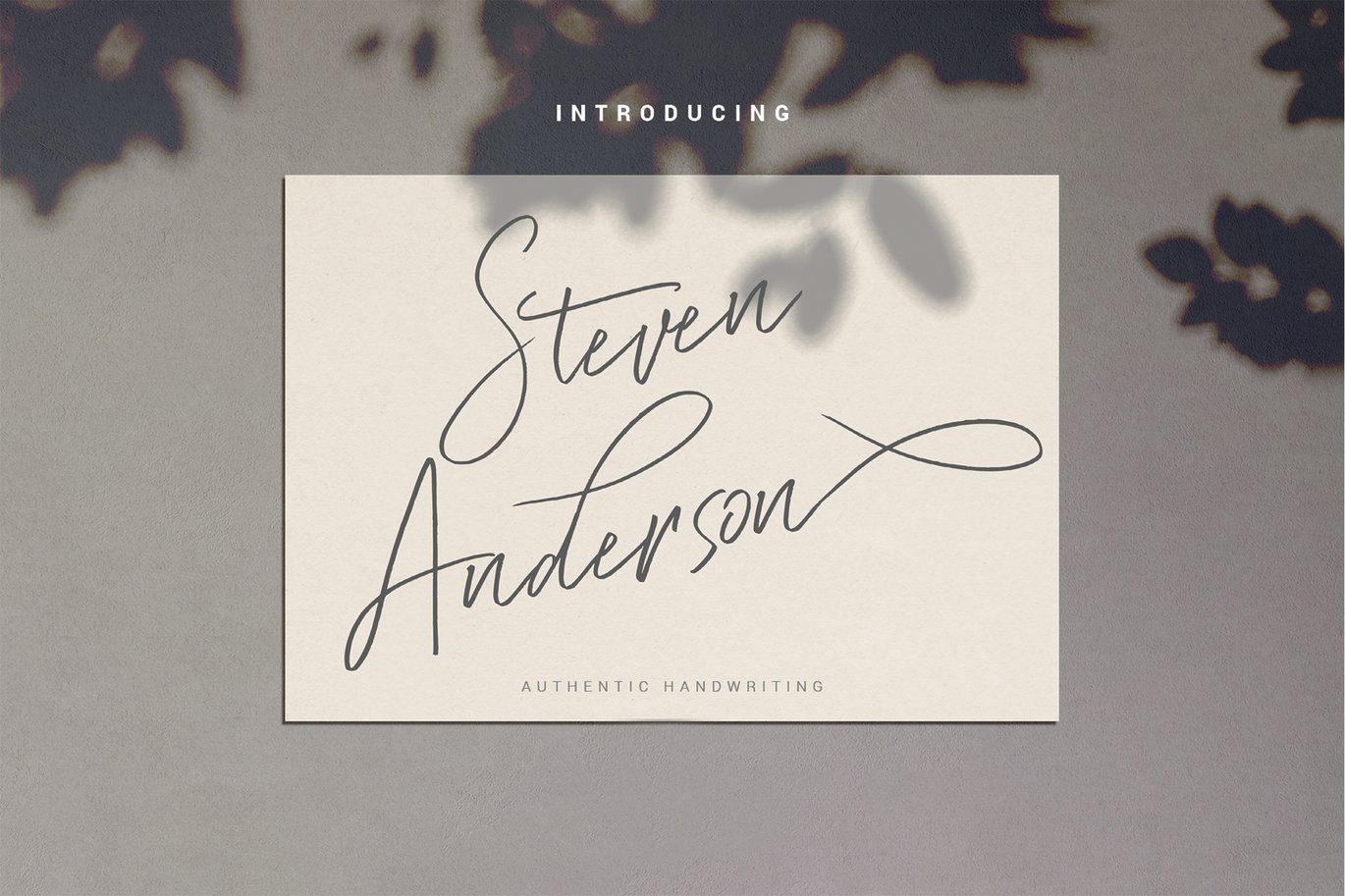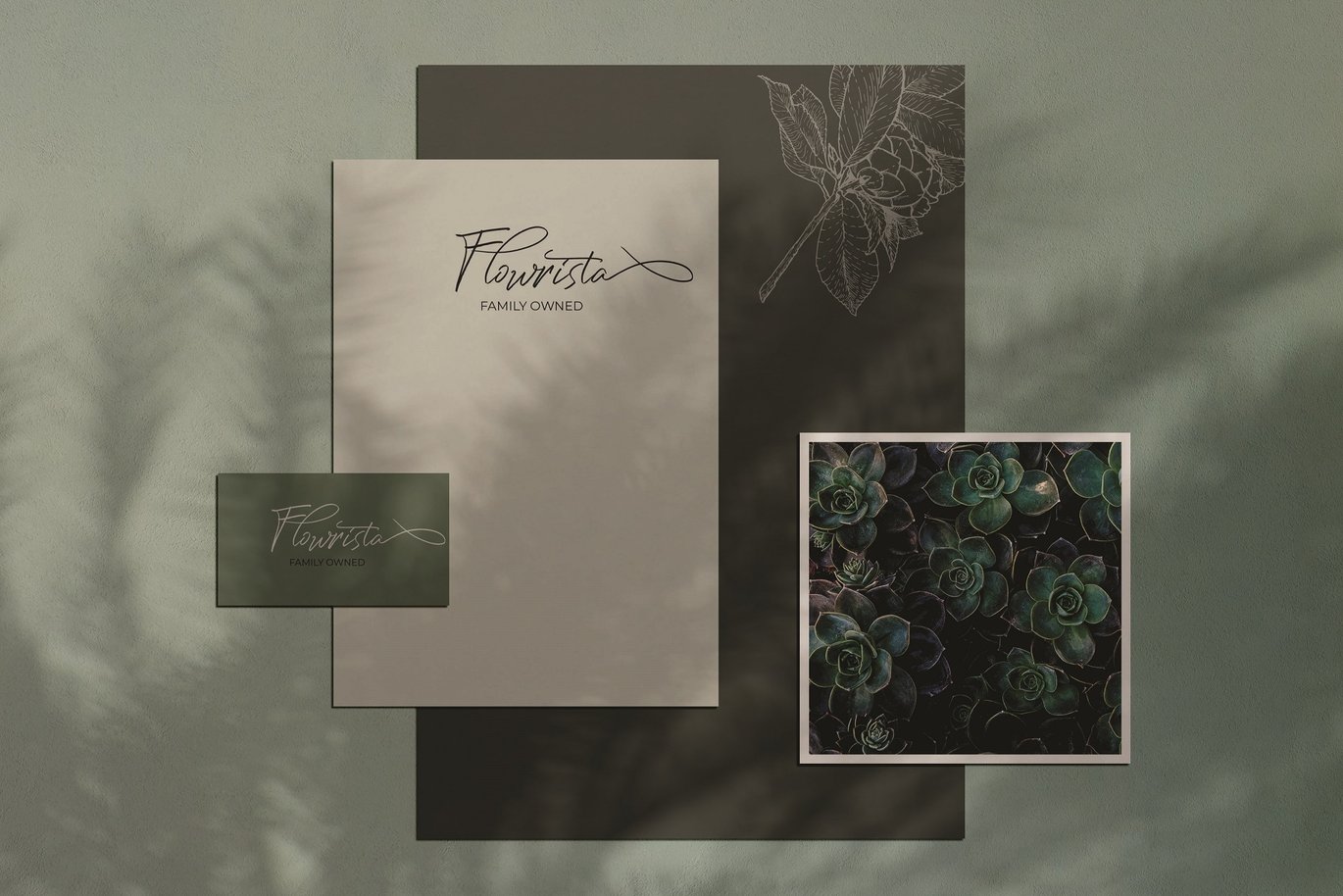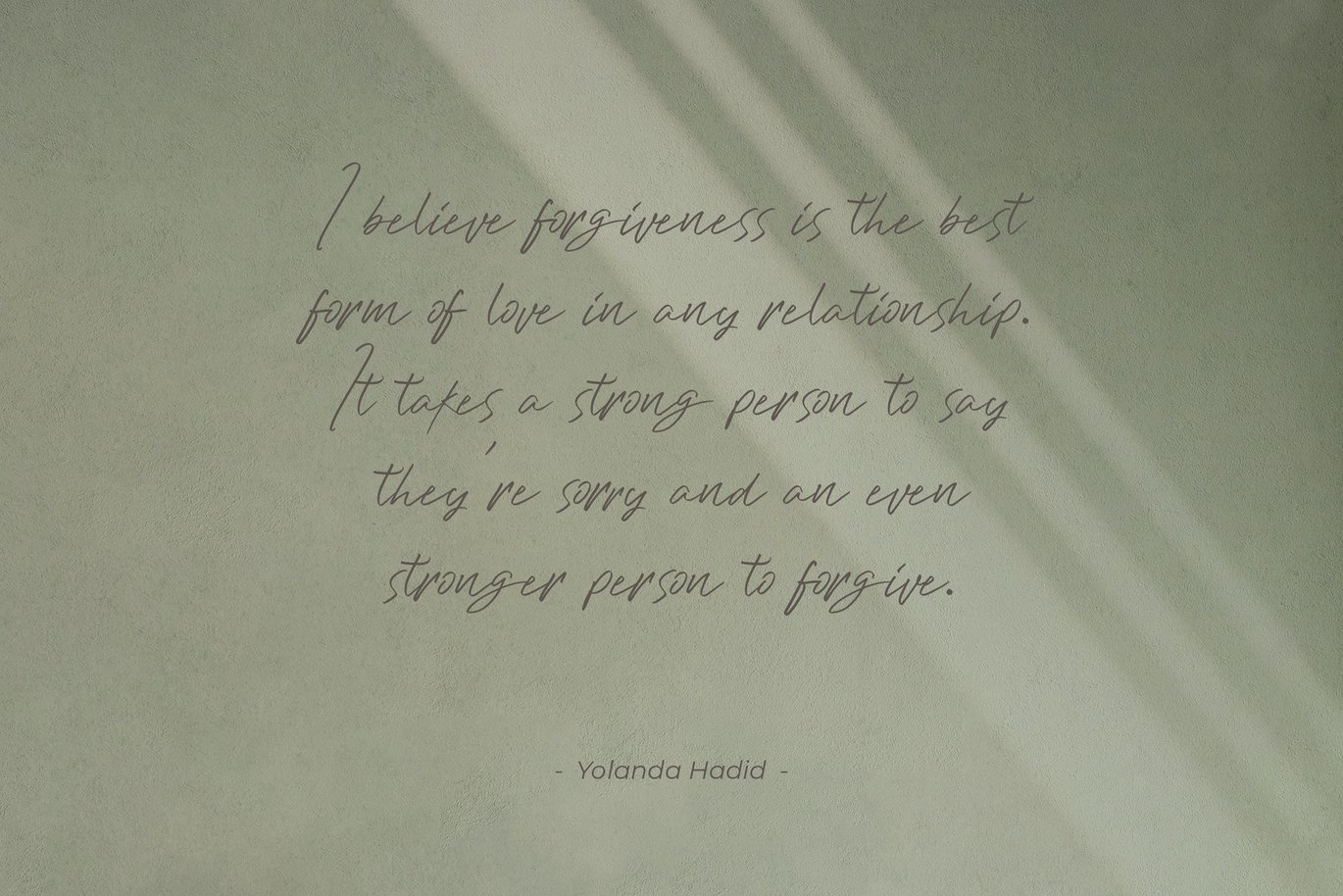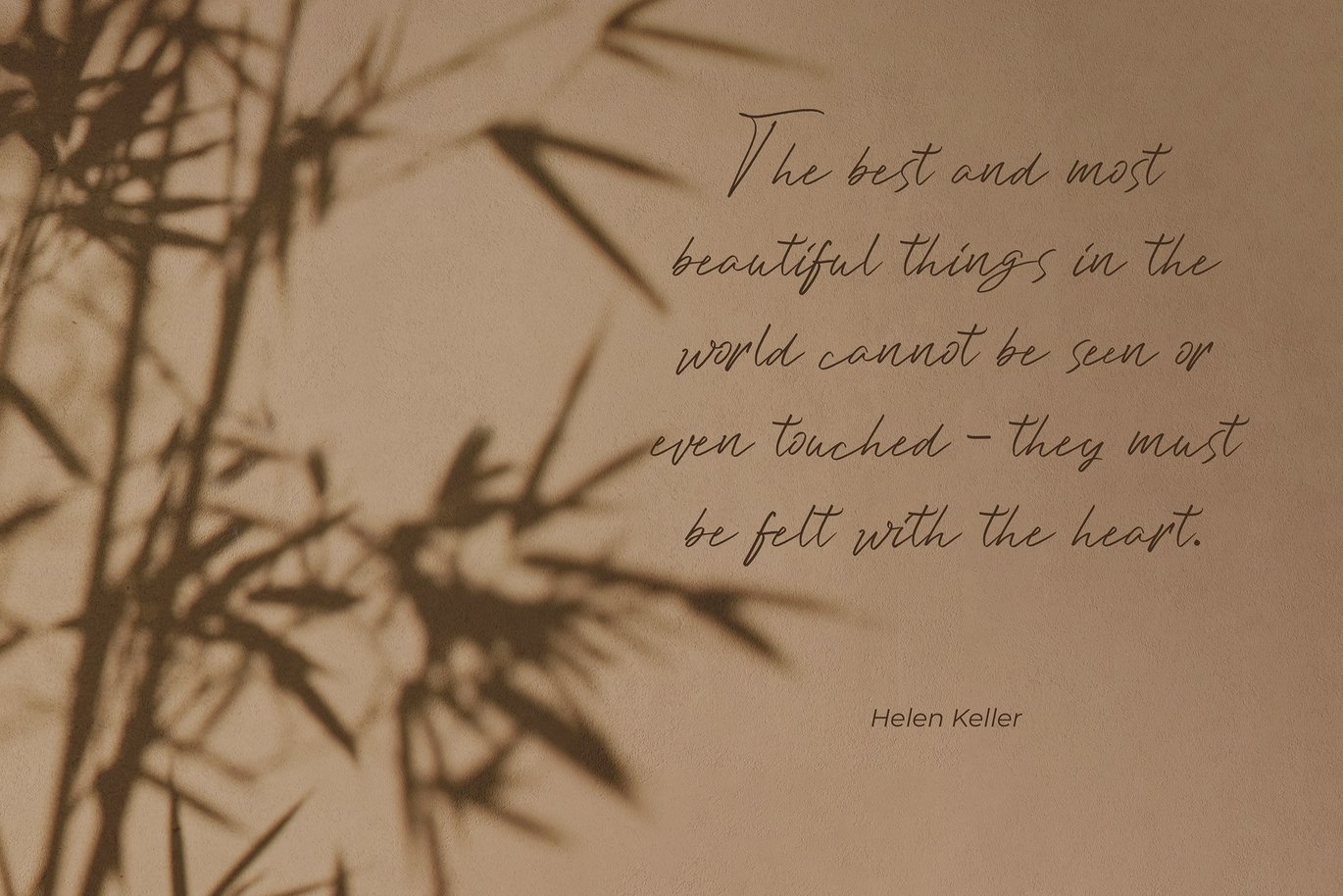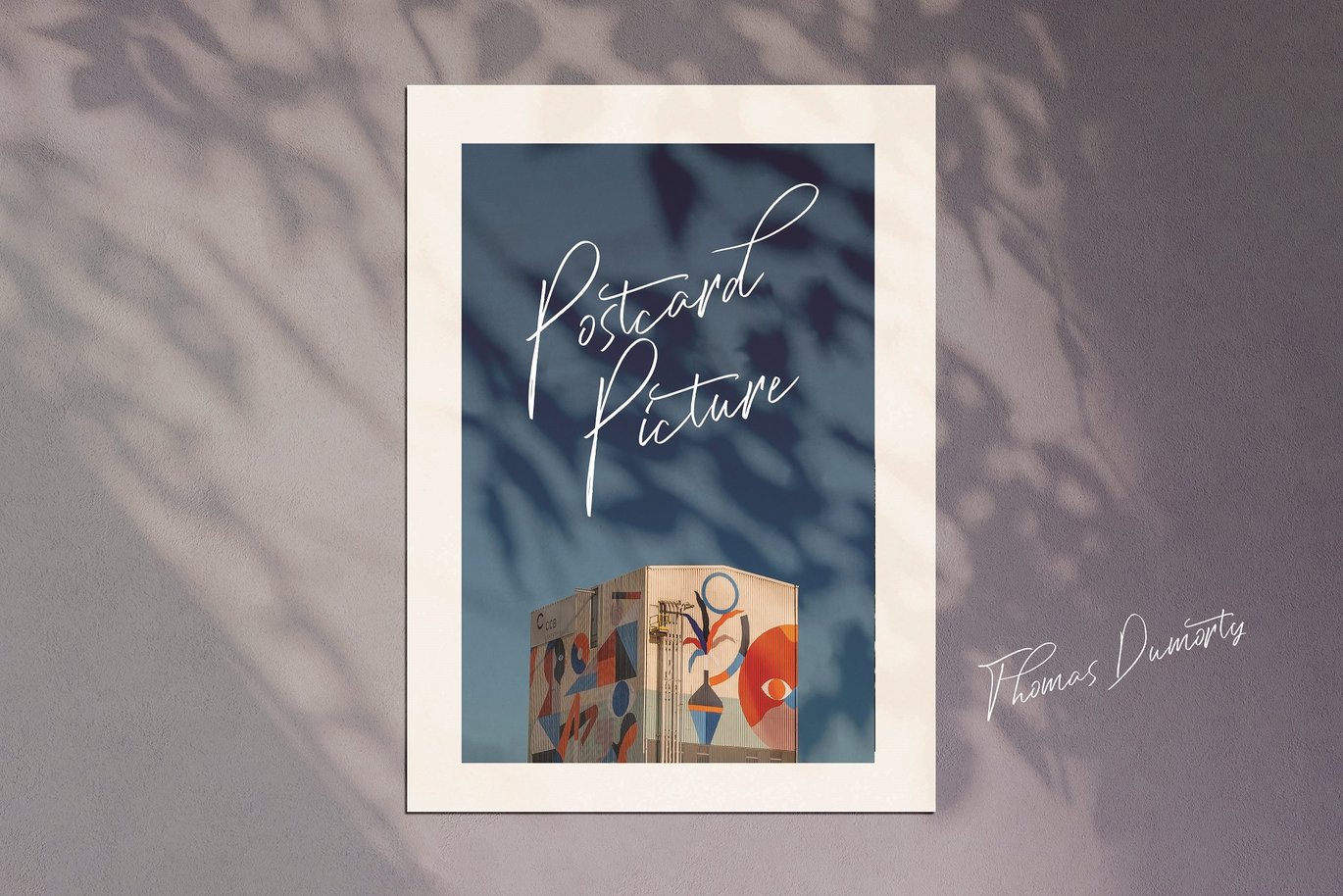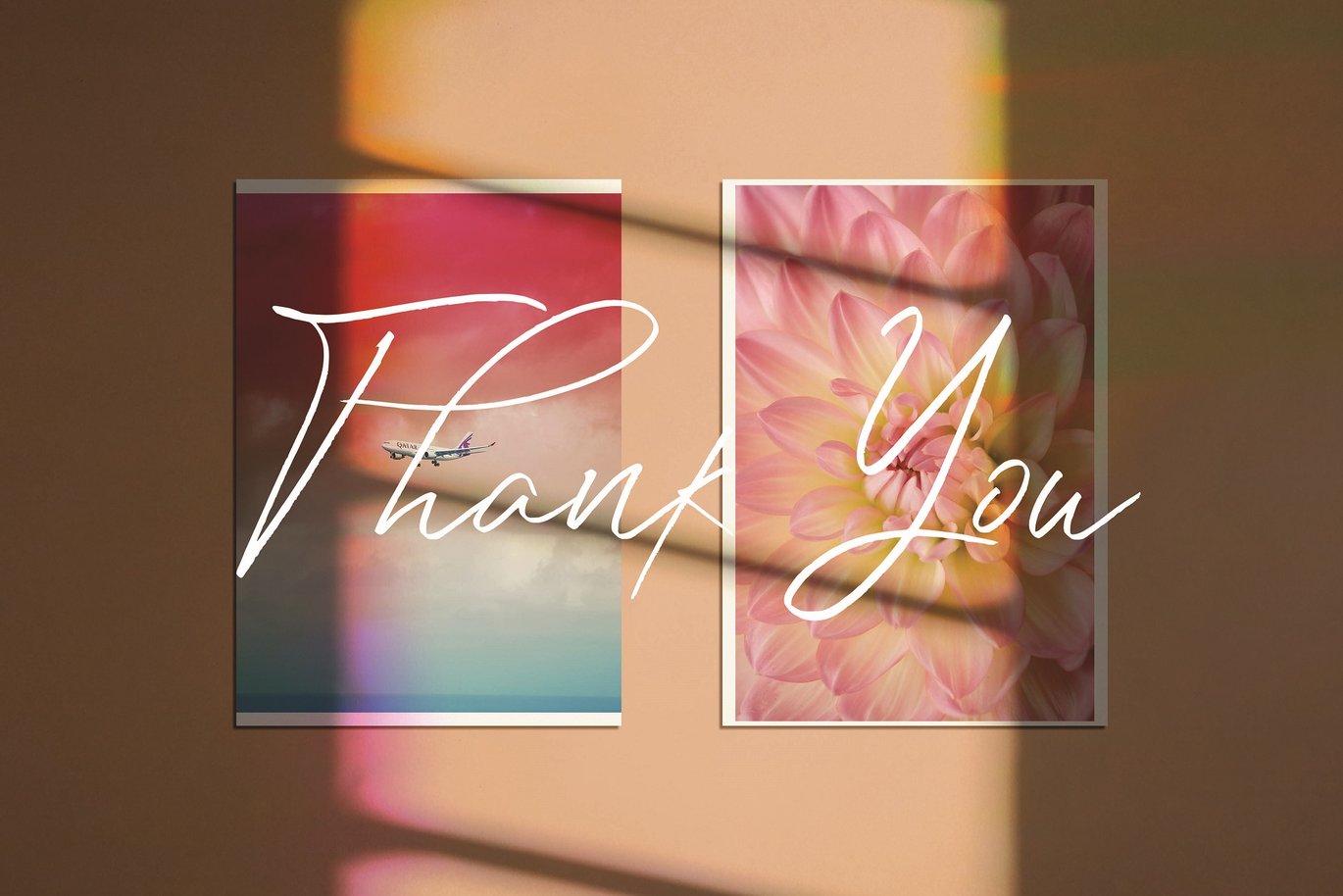
Steven Anderson – Handwriting Font
Introducing: Steven Anderson! A luxury, modern handwritten font with a personal charm. Steven Anderson is perfect for photography, watermark, social media posts, advertisements, logos & branding, invitation, product designs, label, stationery, wedding designs, product packaging, special events or anything that need handwriting taste.